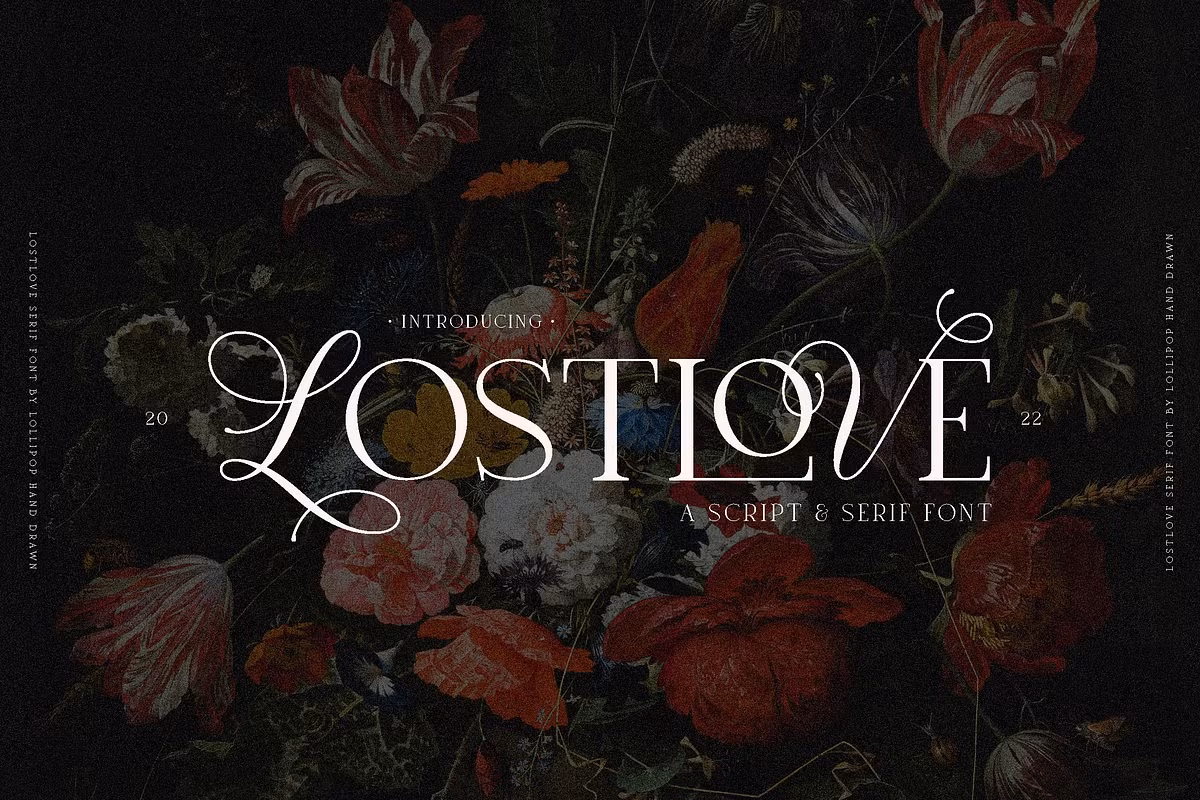
Lost Love Serif Font Free Download is a romantic and timeless serif typeface that blends classic elegance with subtle modern details. Ideal for wedding invitations, editorial design, branding, and heartfelt quotes, this font adds a graceful, emotional touch to any creative project.
With its soft curves and refined structure, Lost Love Serif Font Free Download evokes a sense of nostalgia and sophistication. Whether you're crafting a love letter-inspired brand or designing a poetic print layout, this font delivers style, readability, and emotional depth. Download it today to test its beauty in your projects—then upgrade to a commercial license when you're ready to make it official.